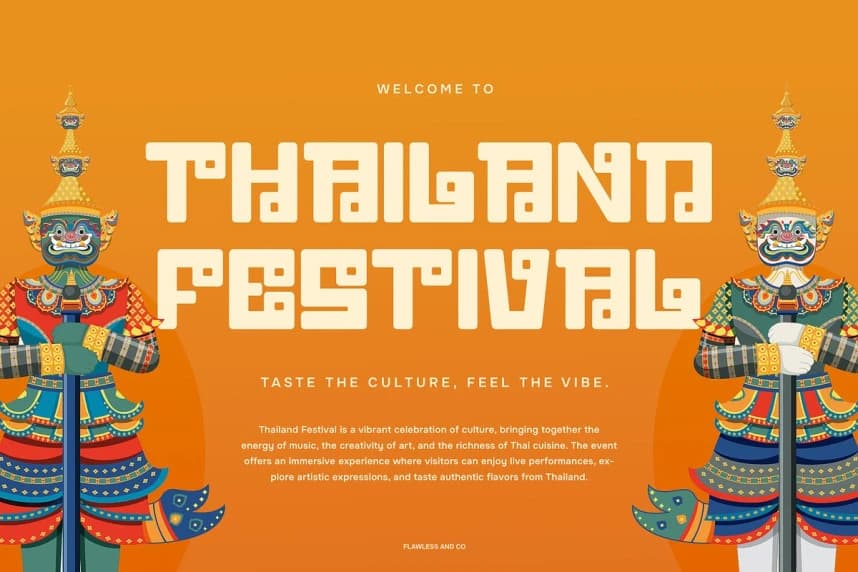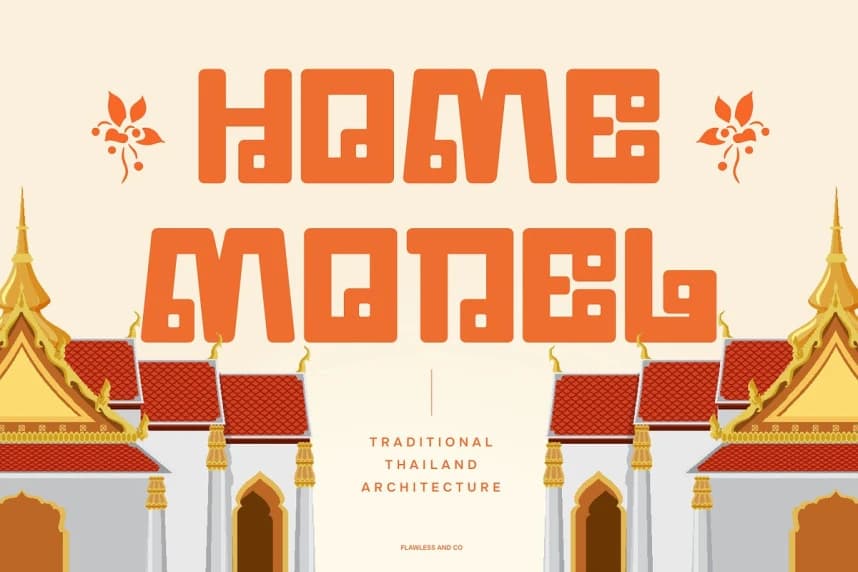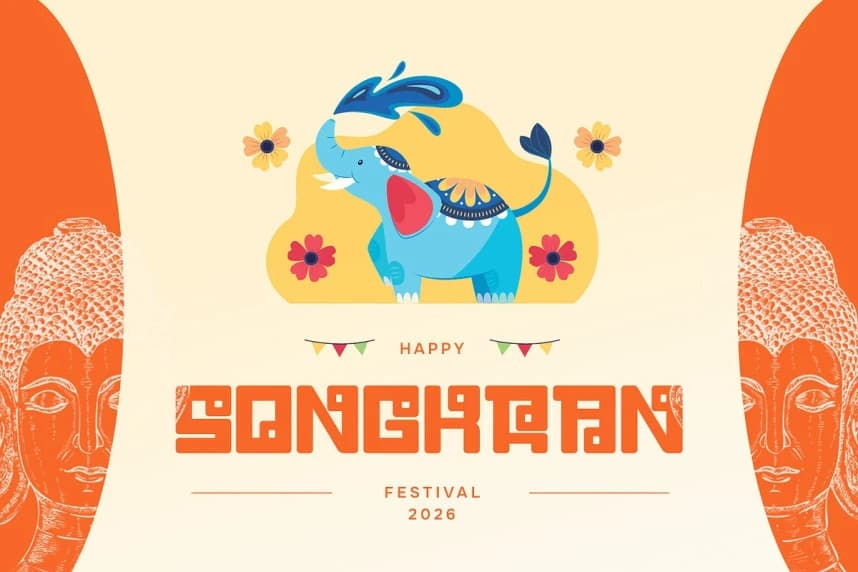
Ravhani Font
Ravhani Font is an oriental Thailand display font that captures the richness of Thai cultural aesthetics through elegant and decorative letterforms. Inspired by traditional Thai art and visual elements